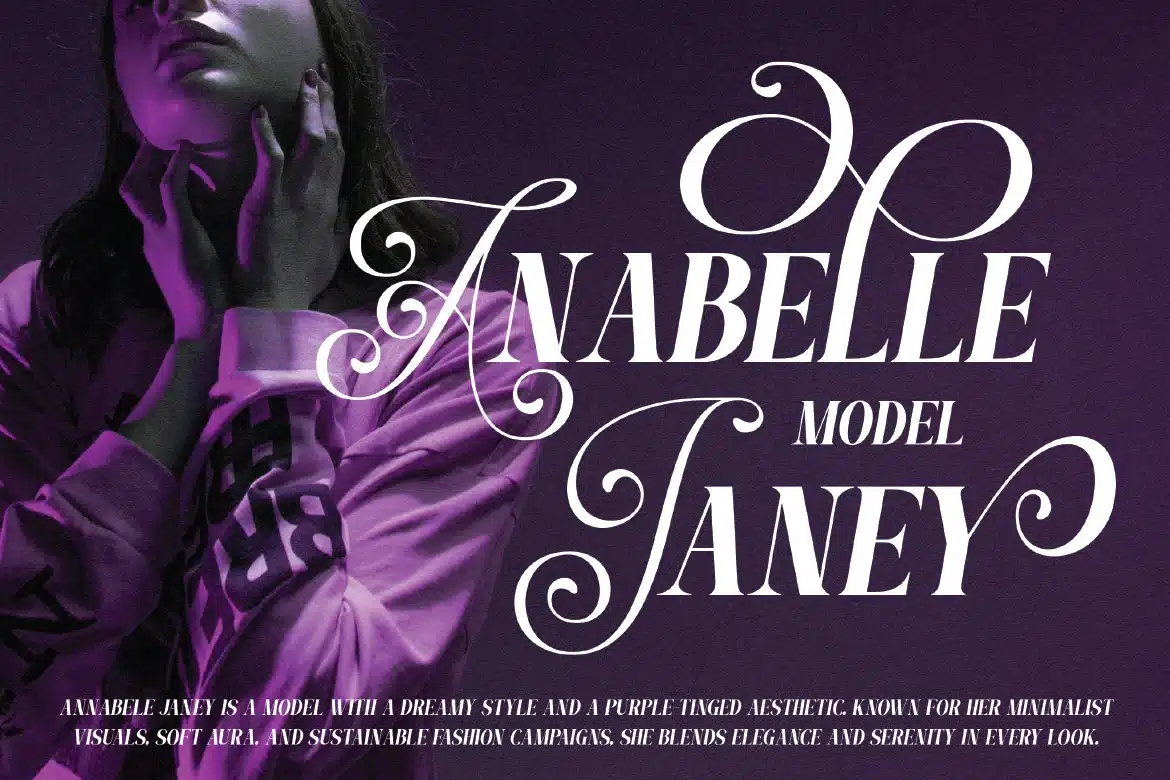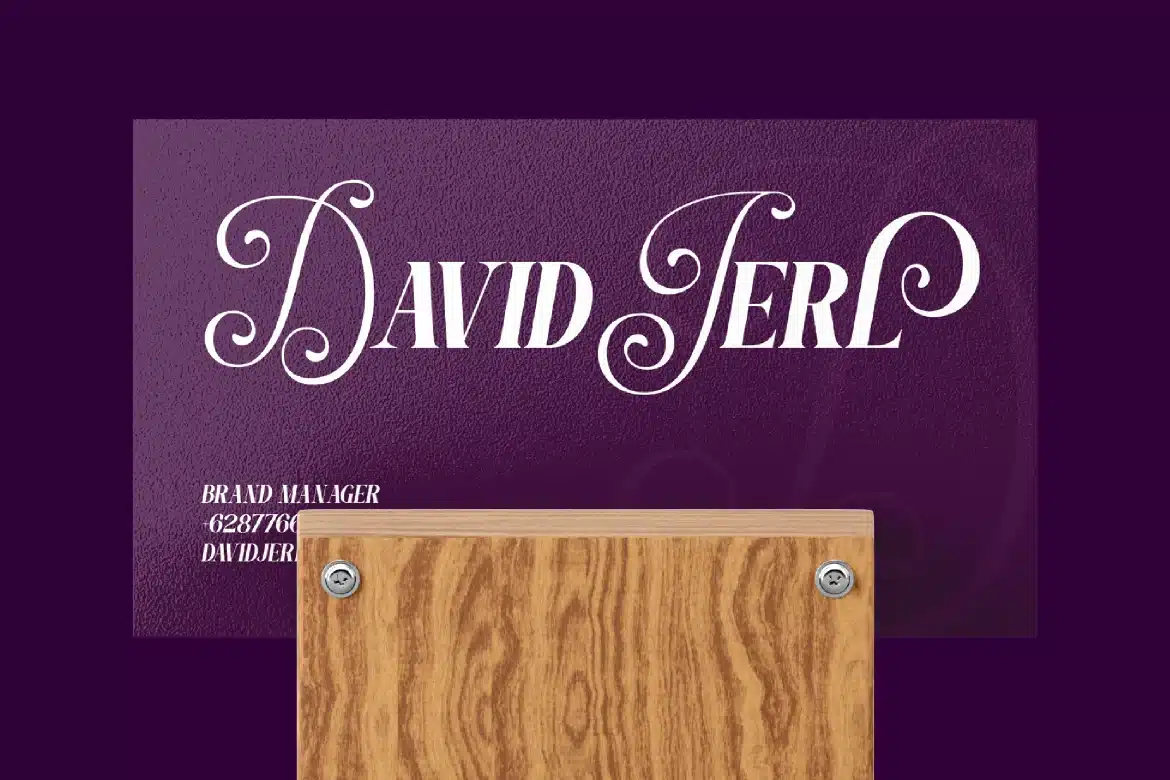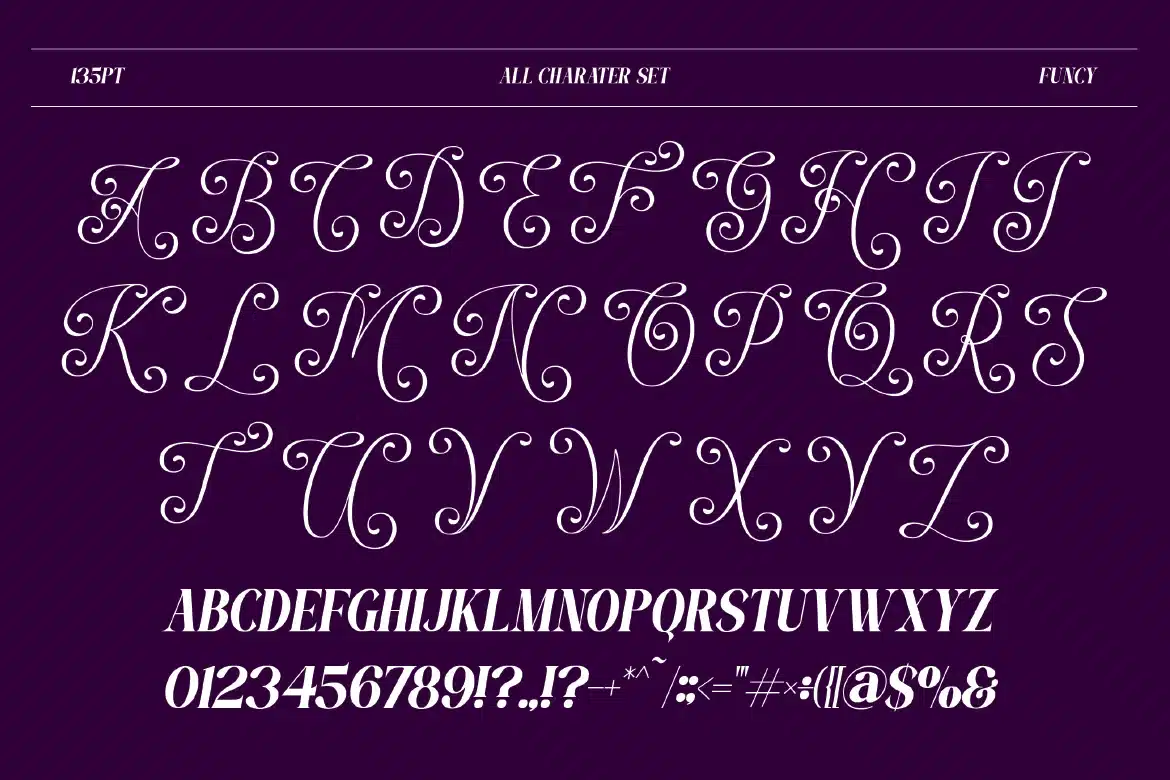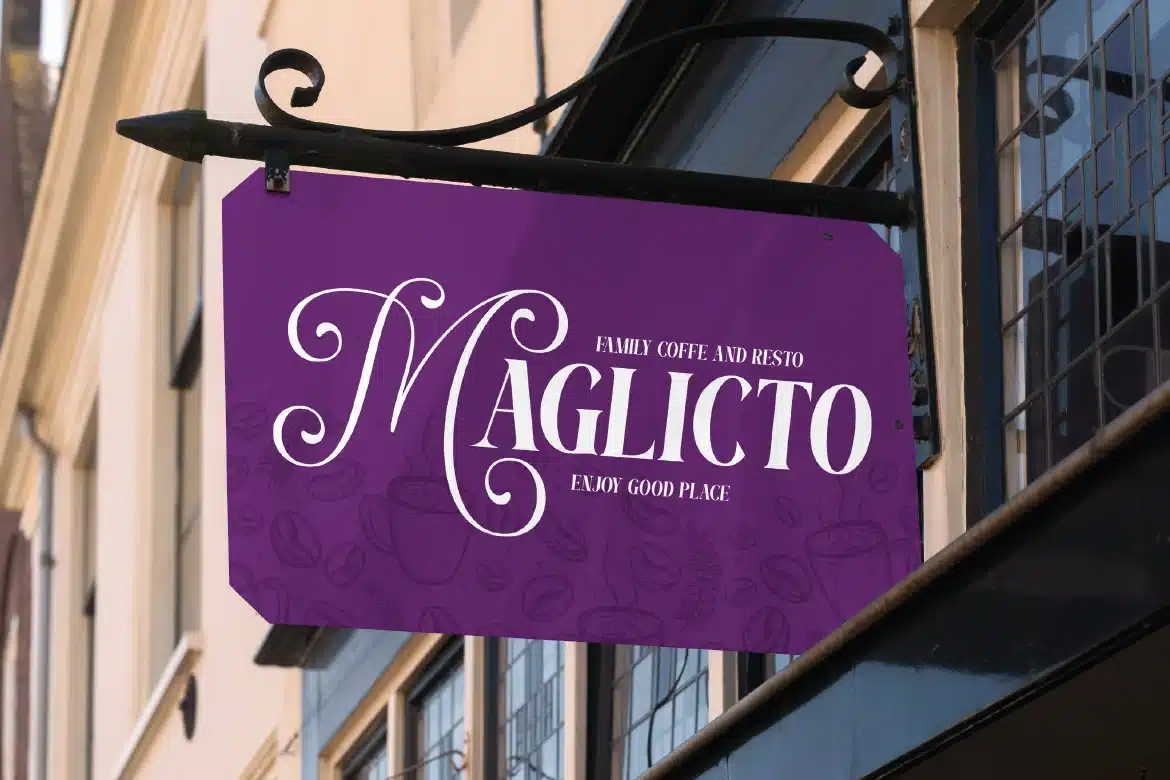
Serif Decorative Font – Funcy
Funcy is a unique serif decorative typeface designed to bring a beautiful yet elegant character to your designs. With its distinctive letterforms, creative details, and stylish curves, Funcy offers a decorative look that feels both artistic and luxury. Its eye-catching personality makes it perfect for projects that need a standout visual with a touch of sophistication. Whether you’re designing branding, posters, or creative layouts, Funcy adds charm and originality to every composition.
Who Should Use Funcy?
Funcy is ideal for designers and creatives who want to explore expressive and decorative typography while maintaining a refined serif style. It’s especially suited for projects that require a unique and artistic visual identity.
Creative and decorative branding
Poster and promotional design
Editorial and magazine layouts
Logo and identity design
Packaging and product labels
Event and invitation design
Social media visuals
Artistic typography compositions